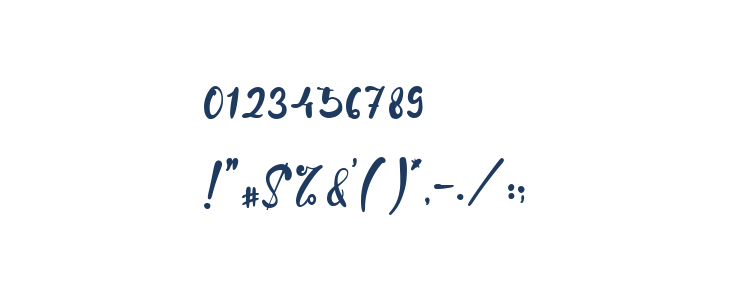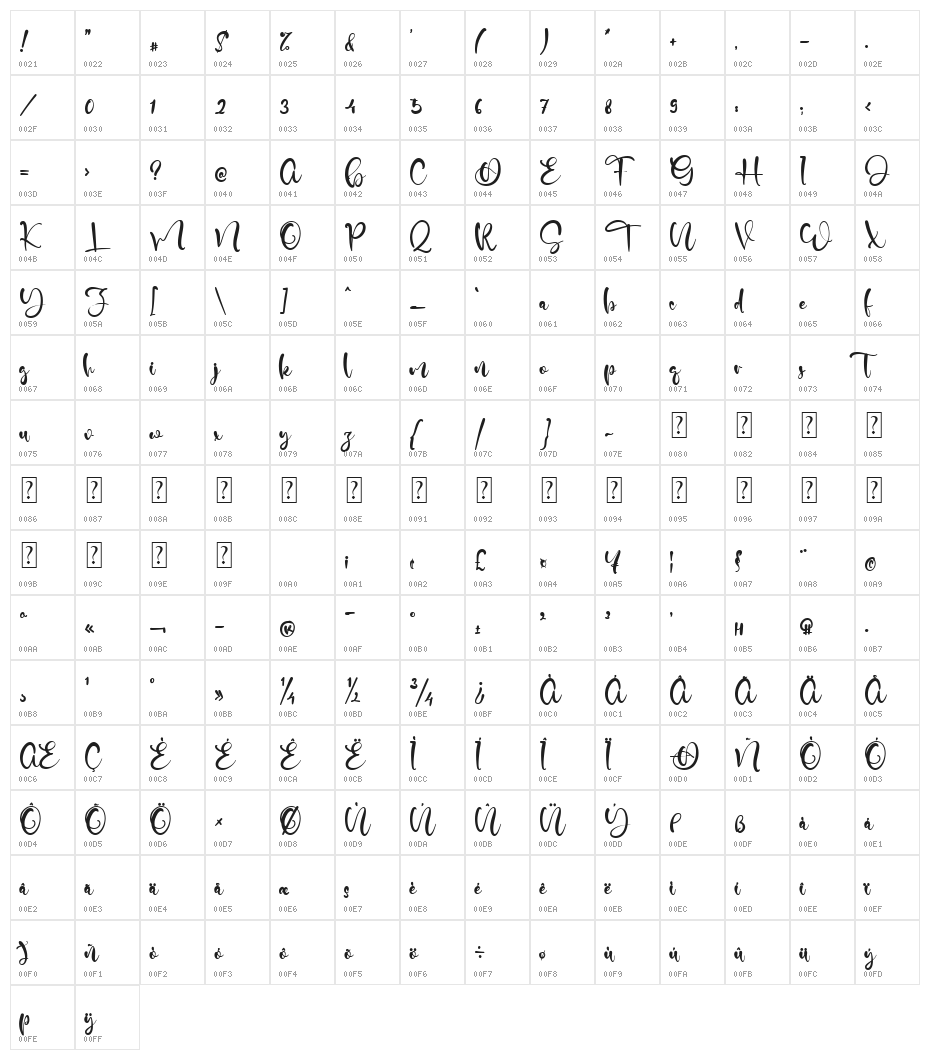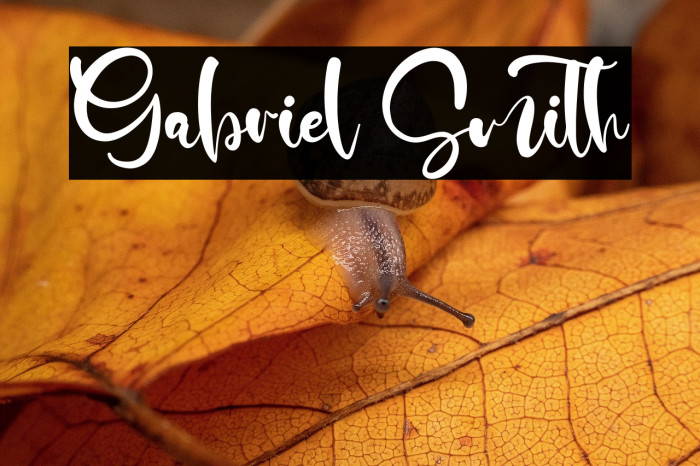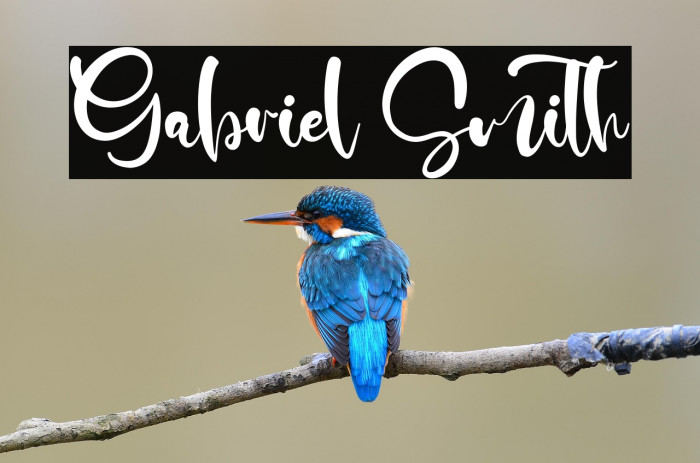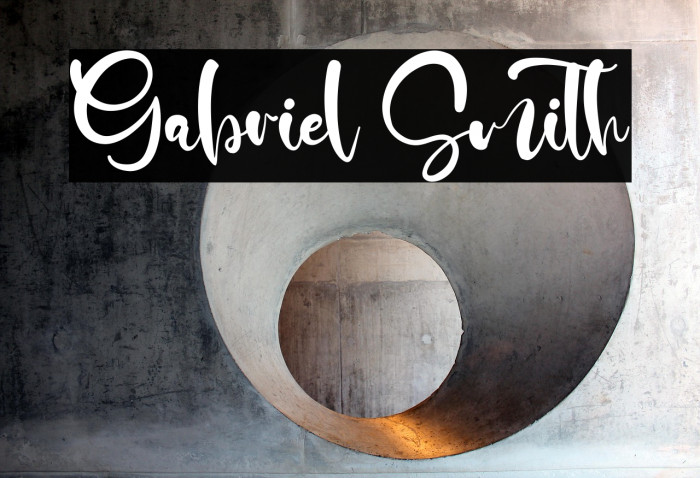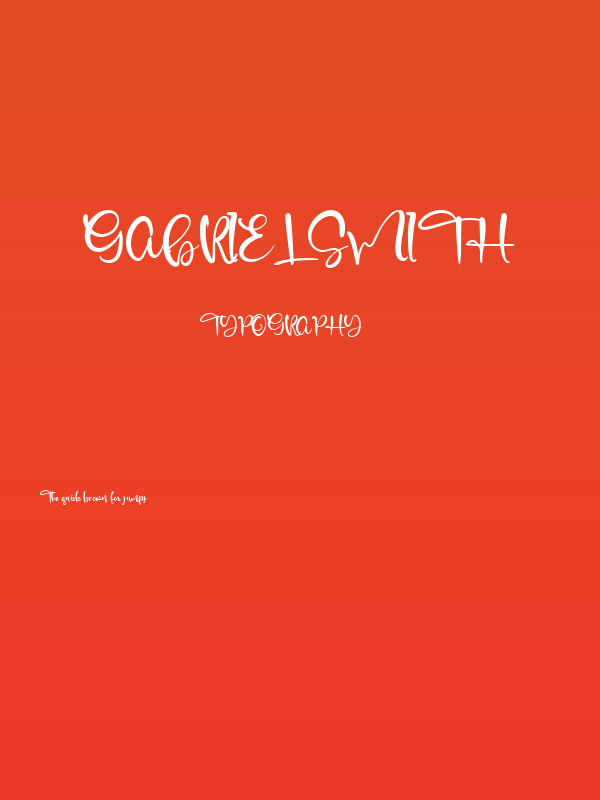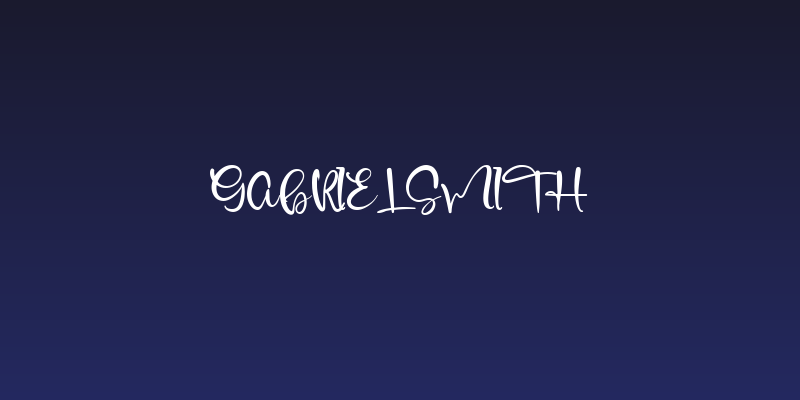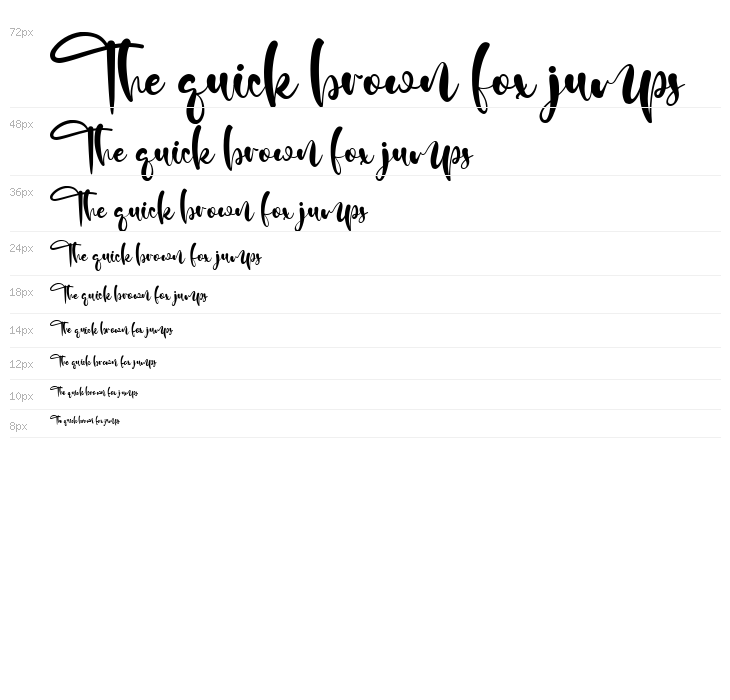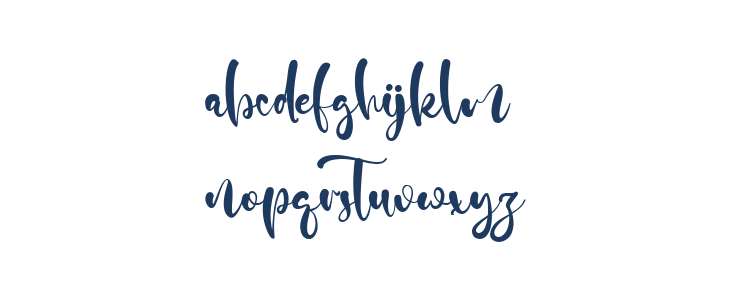
Gabriel Smith Font
| Caz de utilizare | Logos, Invitations, Greeting Cards |
| Proiecte propuse | Ideal for wedding invitations, greeting cards, branding, and logo design where a personal touch is desired. |